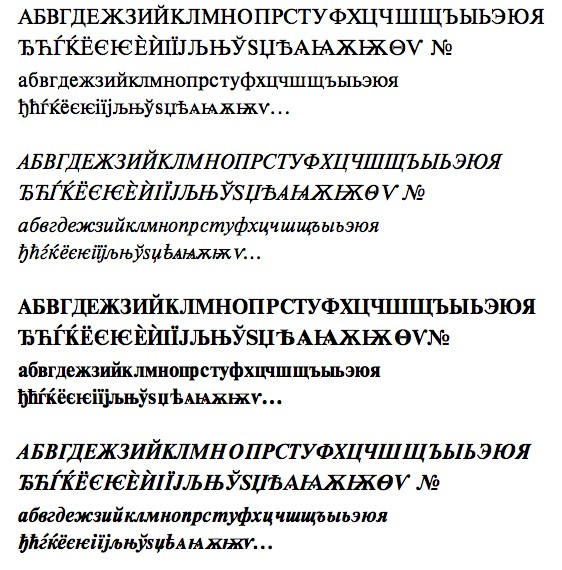
"Moskva Pro" is a Serifed Cyrillic font available for OS X and Windows. Identical font files for both platforms.
The professional solution for sans-serif Cyrillic!Weights: regular, bold, italic, bolditalic
Character set: Slavic Cyrillic incl. historic orthography
Slavic Langues: Russian, Ukrainian, Byelorussian (White Russian), Serbian, Bulgarian, Macedonian
(for all languages: contemporary and historic orthography).Bonus feature: Latin characters (West and East!), including complete transliteration for all Cyrillic